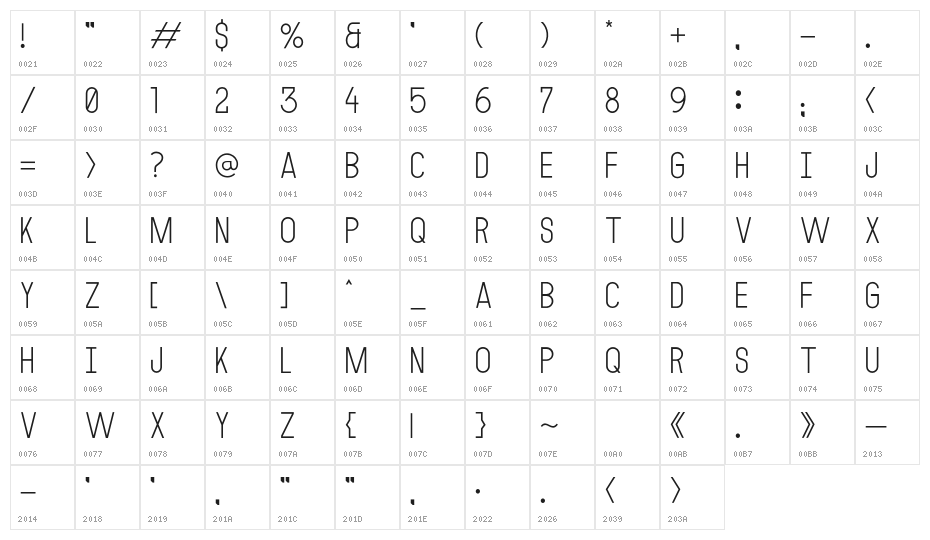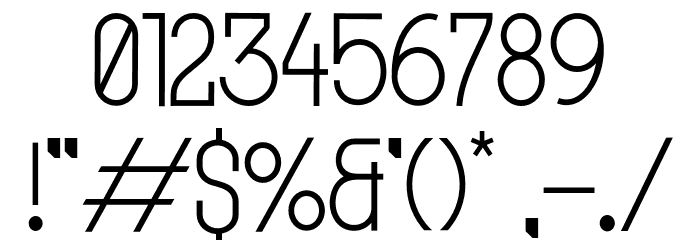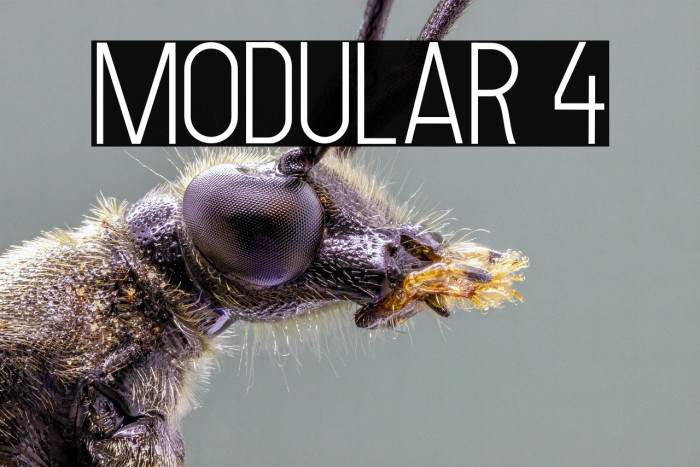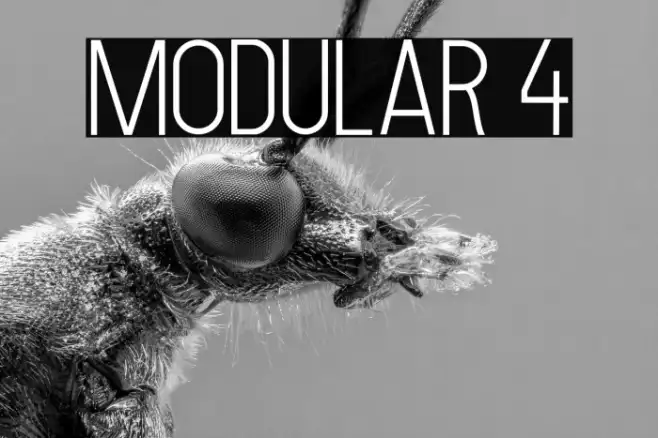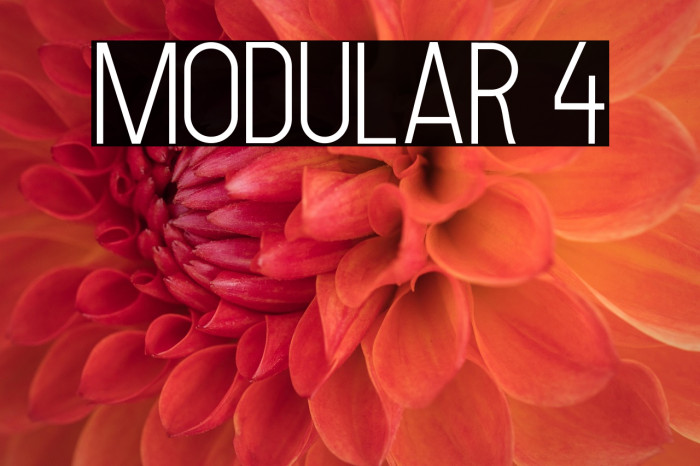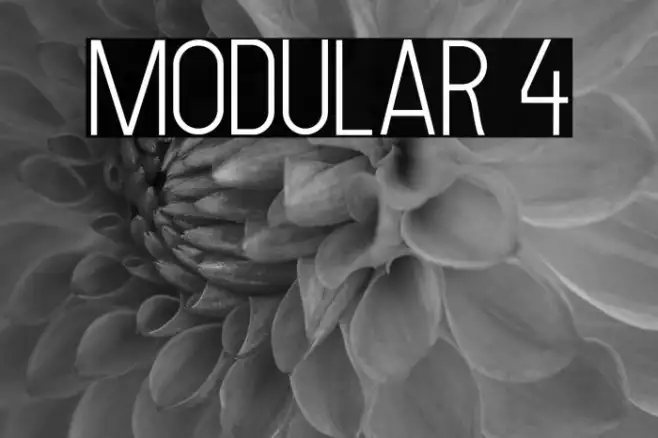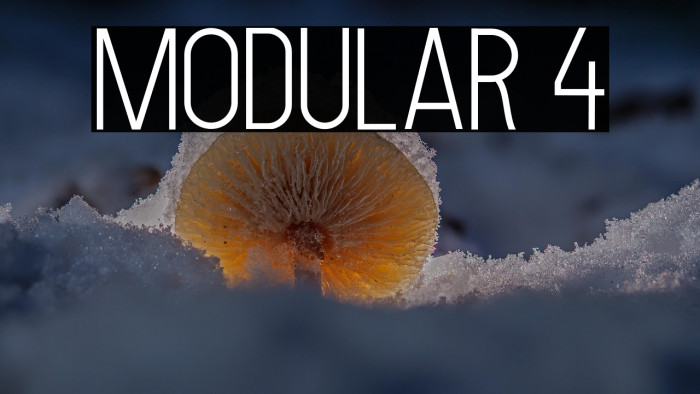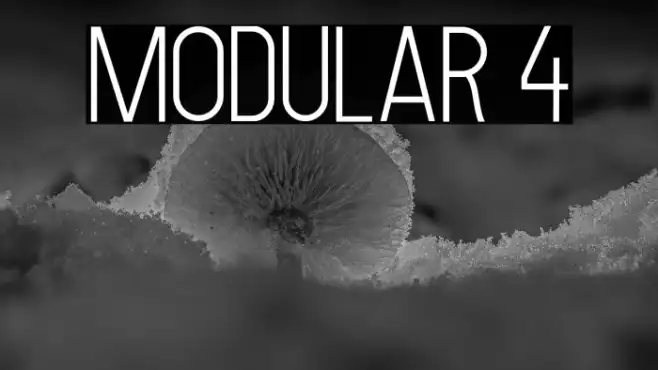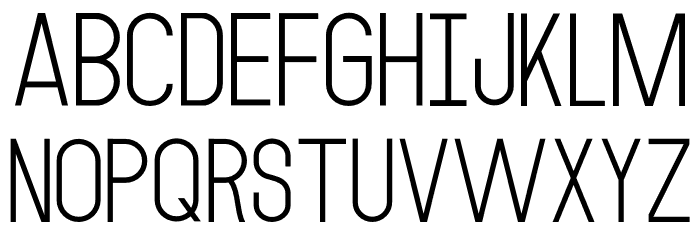
MODULAR 4 Font
MODULAR 4 Description
This font features a clean, geometric design with a modern aesthetic. The characters are constructed with consistent stroke widths, giving it a uniform appearance. The uppercase and lowercase letters maintain a similar height, contributing to its minimalistic style. The numerals are straightforward and align well with the overall design, making them easy to read. Special characters are included, maintaining the same geometric and clean lines as the alphabet. This font is highly legible and versatile, suitable for various design applications.
| Proposed Projects | Ideal for branding, editorial design, digital interfaces, and signage due to its clarity and modern look. |